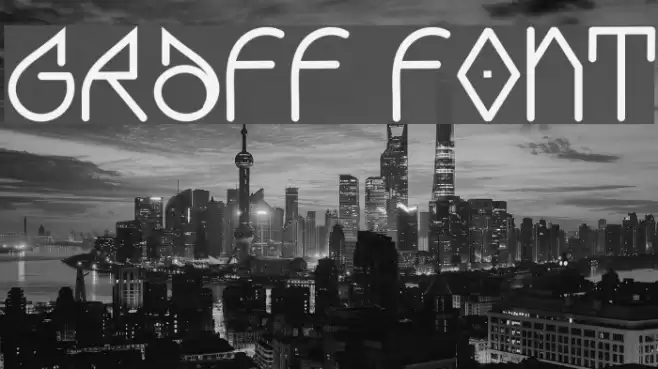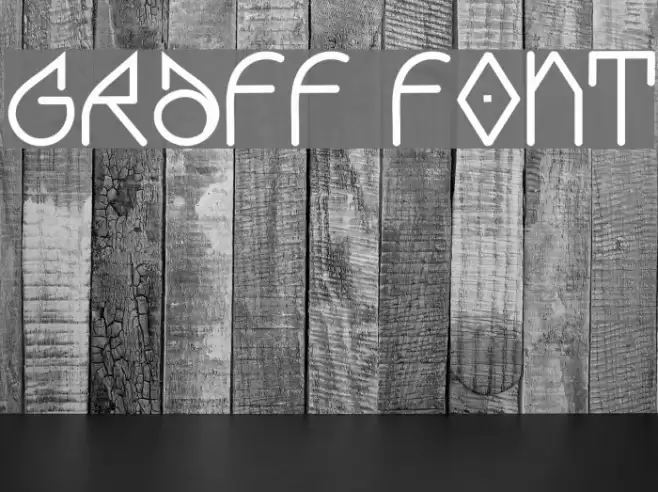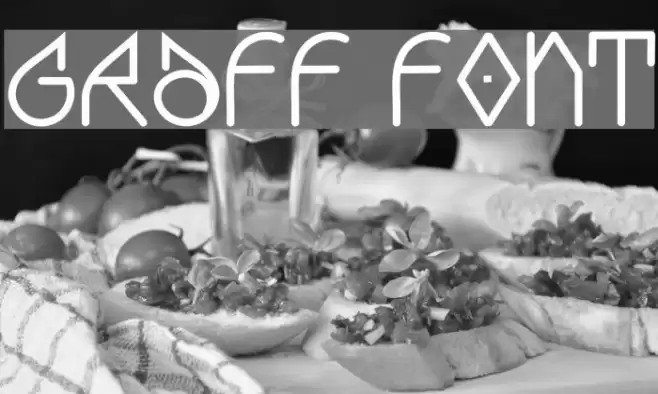
Graff Font
Graff Description
This font showcases a unique and artistic design, characterized by geometric shapes and sharp angles. The uppercase letters exhibit a distinct symmetry, with some characters incorporating circular elements that add a modern twist. The lowercase letters maintain the geometric theme, offering a cohesive look throughout. The numerals are crafted with the same attention to detail, ensuring consistency across all characters. Special characters are designed to complement the overall style, making this font suitable for creative and bold projects.
A geometric and artistic font with sharp angles and modern elements from Uncategorized fonts.
- Proposed Projects: Ideal for branding, posters, album covers, and any project requiring a bold, artistic touch.